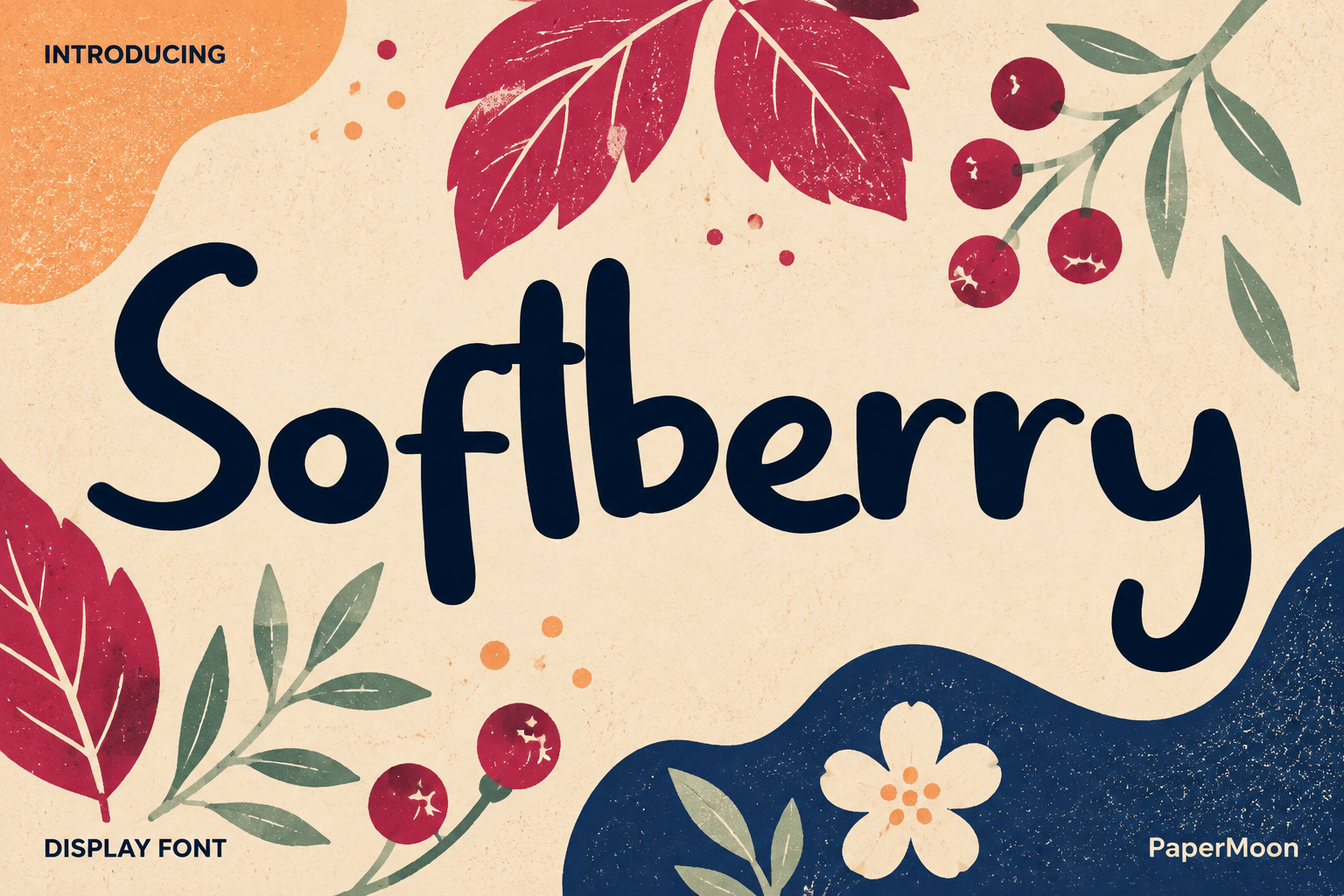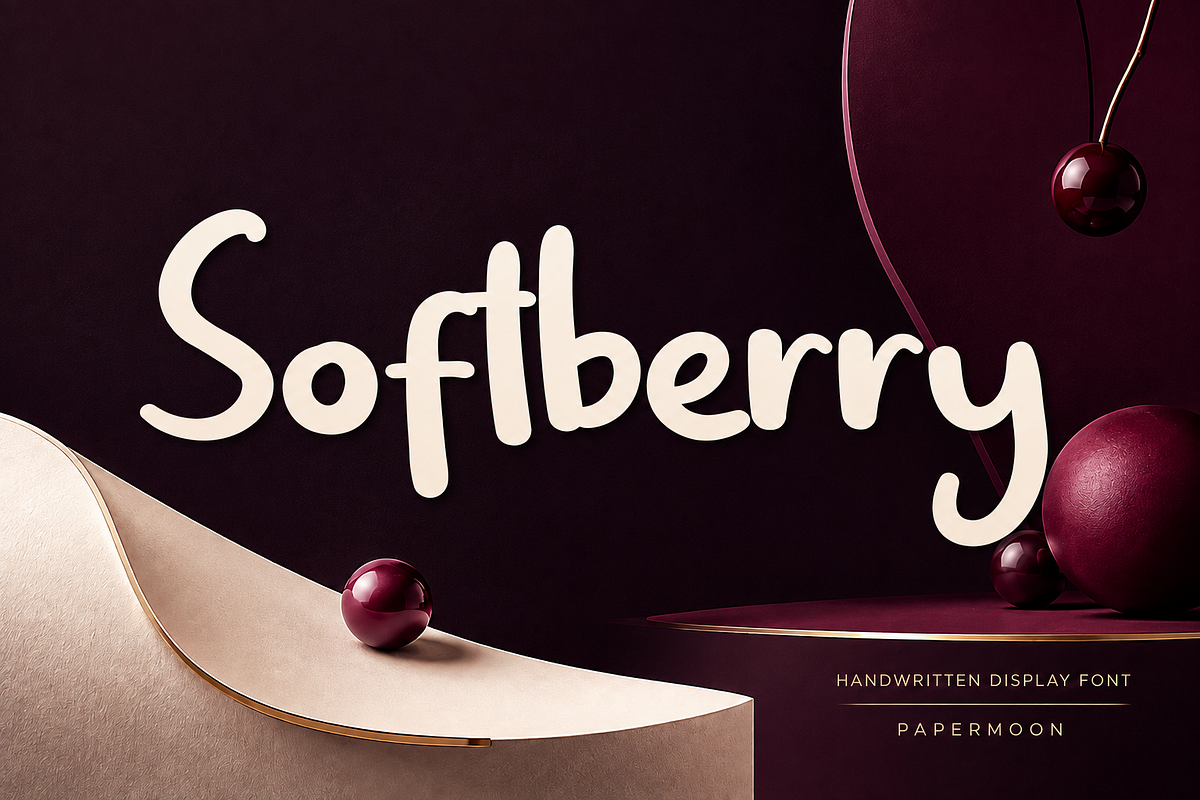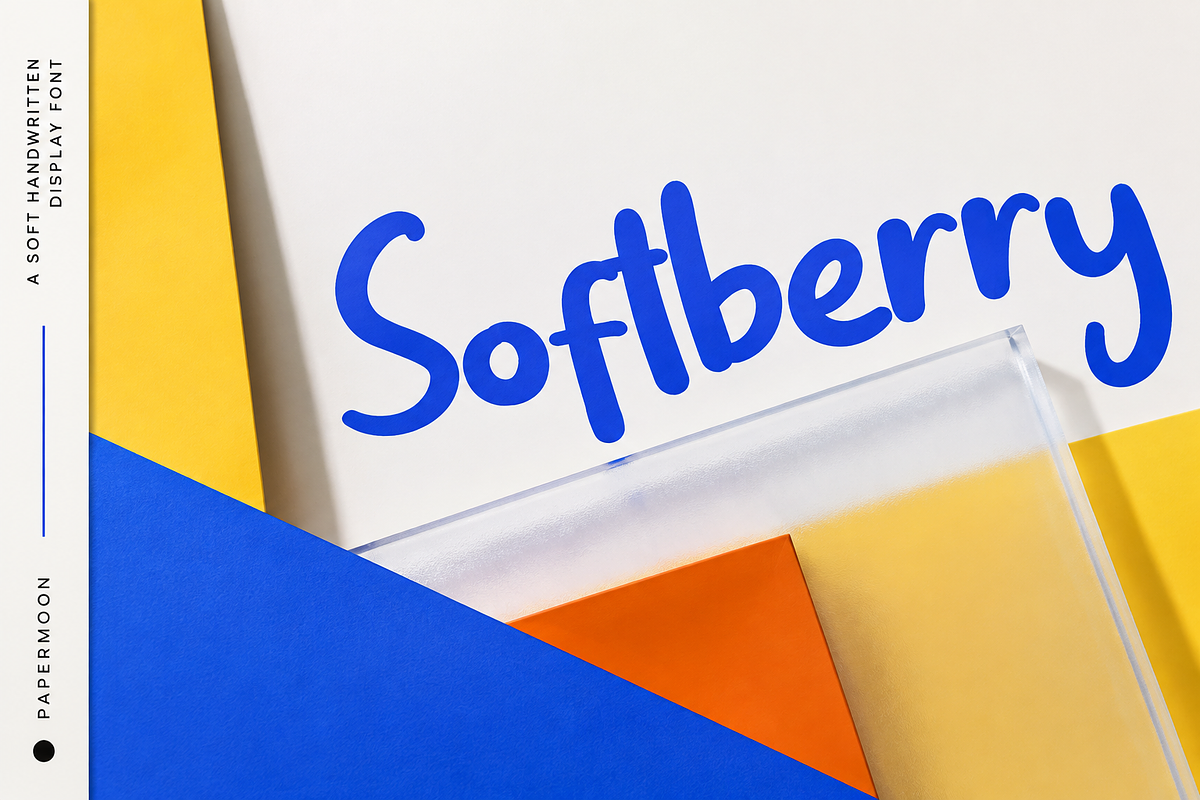
SoftBerry - Handwritten Brush Font
Handwriting that feels real, not robotic. SoftBerry is a fun, playful handwritten brush font that gives every project a hand-drawn, personal touch. Built from genuine brush strokes with an easygoing, casual rhythm, it has the character of ink on paper and the polish of a professionally kerned typeface. No more settling for stiff, generic fonts - this handwriting font brings warmth and personality to everything you set it in.
SoftBerry is a playful handwritten brush font in a single Regular weight, with 214 glyphs covering uppercase, lowercase, numerals, punctuation and symbols. It ships with OpenType ligatures and a set of PUA-encoded swoosh and ornament characters you can drop into any layout for extra flair.
OpenType ligatures: Automatic letter joins keep the handwritten flow natural, so words read like they were written in one confident pass.
PUA swoosh characters: Decorative flourishes tucked into the private use area. Open the glyph panel in Adobe apps or the character map on Windows and you can place them wherever your design needs a finishing touch.
214 glyphs: A complete set of uppercase and lowercase letters, numerals, punctuation and symbols - everything a project needs out of the box.
Well-spaced and kerned: Carefully balanced spacing and kerning pairs mean words sit comfortably together at any size, from giant headlines down to small print.
Use it for:
Logos and branding that need a friendly, human voice
Wedding invitations, save-the-dates and stationery
Greeting cards, quotes and social media graphics
Kids' projects, posters, stickers and packaging
Blog headers, planner pages and anything that needs a playful hand-written feel